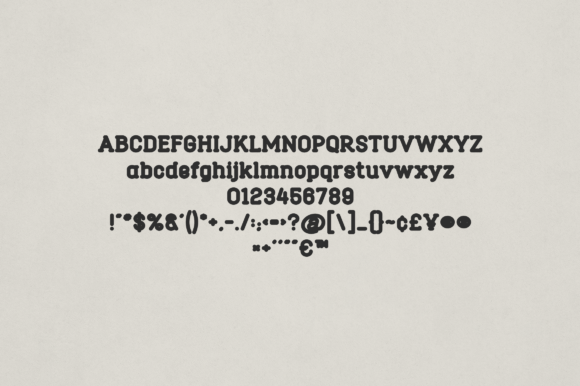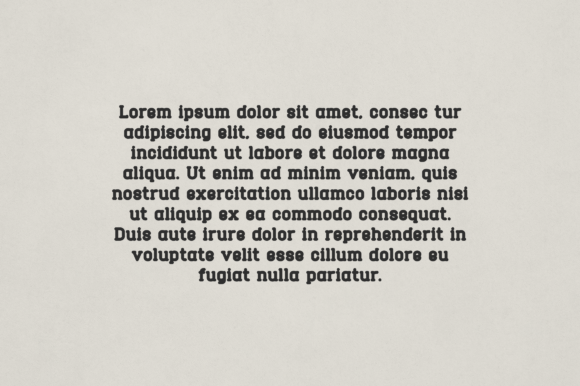
Gale Font: Elevate Your Typography with Elegance and Versatility
Are you tired of using the same old fonts for your design projects? Look no further than Gale Font, an elegant and versatile slab serif font that is sure to make your typography truly unique. With its sophisticated and stylish aesthetic, Gale Font is perfect for a wide range of design applications, from branding and logo design to product packaging and magazine headers.
The Characteristics of Gale Font
Gale Font is a slab serif font, characterized by its distinctive rectangular serifs and clean lines. This font family is designed to be highly legible, making it perfect for use in a variety of contexts, from large headlines to body text. The elegant and refined aesthetic of Gale Font makes it an excellent choice for designers looking to add a touch of sophistication to their work.
What Makes Gale Font So Versatile?
One of the key benefits of Gale Font is its versatility. This font can be used in a wide range of design applications, from branding and logo design to product packaging and magazine headers. Its clean and elegant aesthetic makes it perfect for use in both digital and print contexts, and its highly legible design ensures that it will be easy to read, even at small sizes.
Gale Font is a perfect choice for designers and crafters looking to elevate their typography and add a touch of elegance to their work. Whether you’re working on a branding project, designing a product label, or creating a stylish text overlay for a background image, Gale Font is sure to impress. Its sophisticated aesthetic and highly legible design make it an excellent choice for a wide range of design applications.
Use Cases for Gale Font
So, what are some potential use cases for Gale Font? Here are a few ideas to get you started:
- Branding projects: Use Gale Font to create a sophisticated and stylish brand identity that will set your business apart from the competition.
- Home-ware designs: Add a touch of elegance to your home-ware designs with Gale Font, perfect for use on product labels, packaging, and marketing materials.
- Product packaging: Use Gale Font to create eye-catching and stylish product packaging that will help your products stand out on store shelves.
- Magazine headers: Add a touch of sophistication to your magazine headers with Gale Font, perfect for use in both digital and print contexts.
- Text overlays: Use Gale Font to create stylish text overlays for background images, perfect for use in social media graphics, website headers, and more.
Why Choose Gale Font?
So, why should you choose Gale Font for your design projects? Here are just a few reasons:
- Elegant and sophisticated aesthetic: Gale Font has a refined and elegant aesthetic that is sure to impress.
- Highly legible design: Gale Font is designed to be highly legible, making it perfect for use in a wide range of contexts.
- Versatile: Gale Font can be used in a wide range of design applications, from branding and logo design to product packaging and magazine headers.
In conclusion, Gale Font is an elegant and versatile slab serif font that is sure to make your typography truly unique. With its sophisticated aesthetic, highly legible design, and versatility, Gale Font is perfect for a wide range of design applications. Whether you’re a designer or crafter looking to elevate your typography, Gale Font is an excellent choice. So why wait? Download Gale Font today and start creating stunning typography that will set your work apart from the competition!